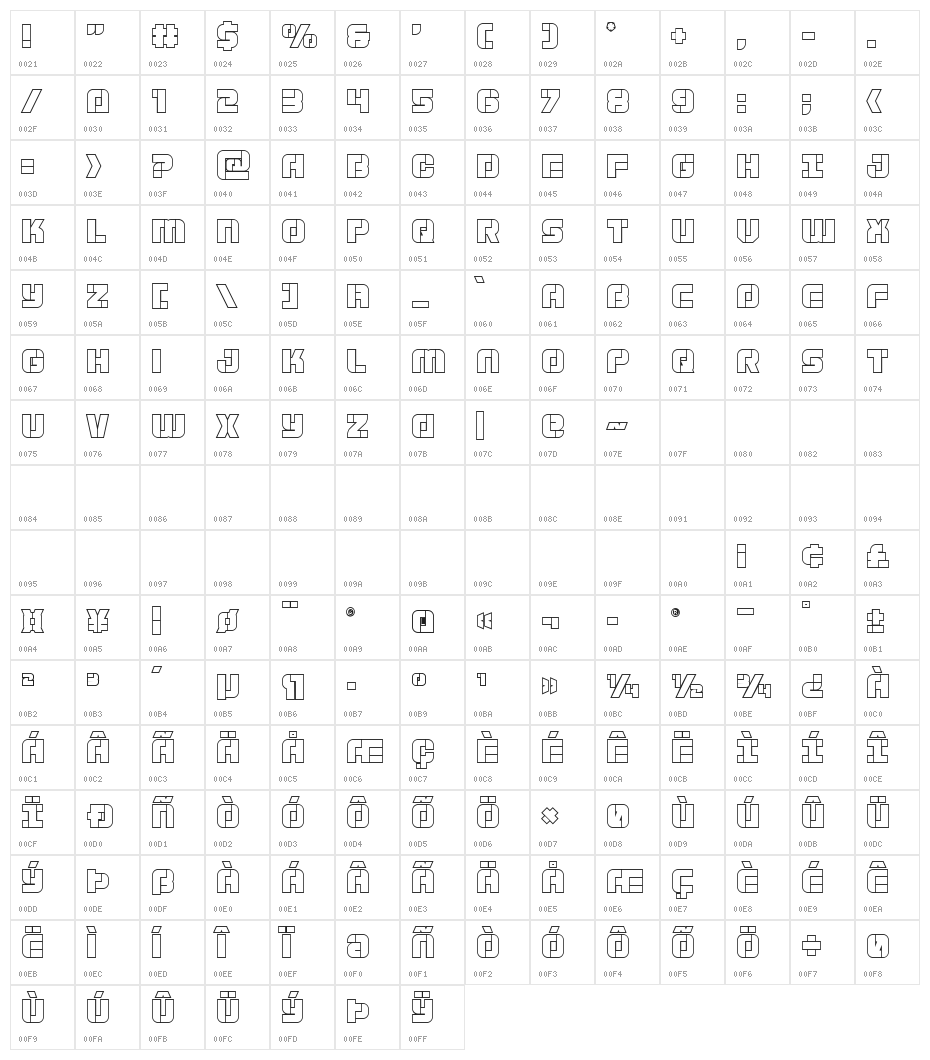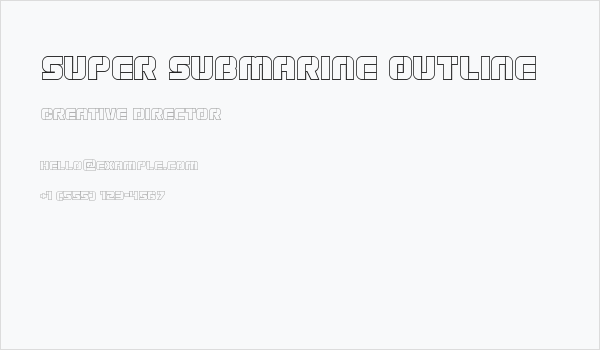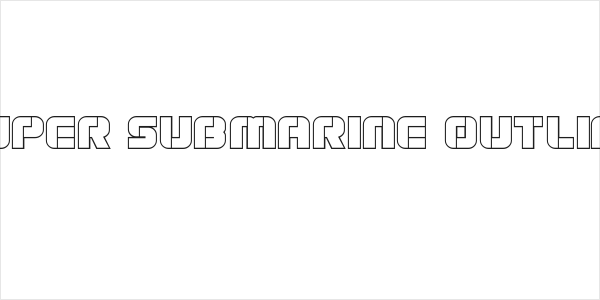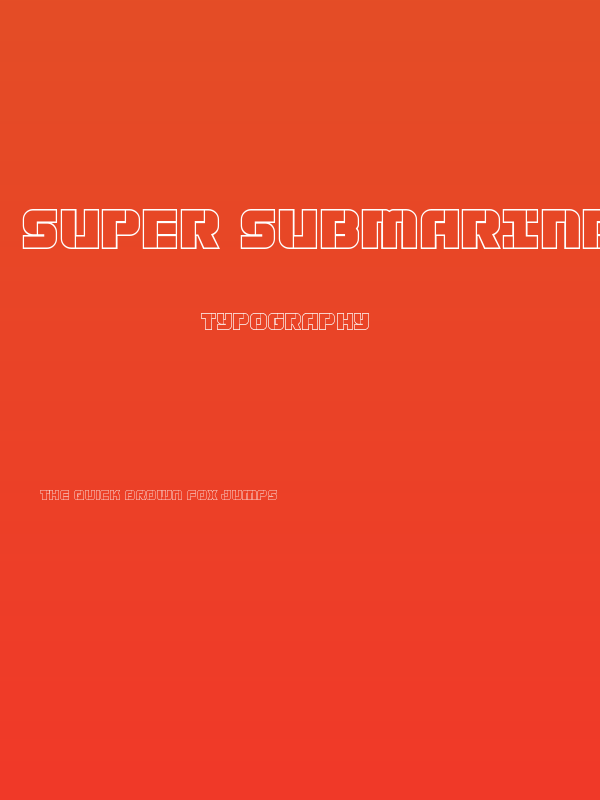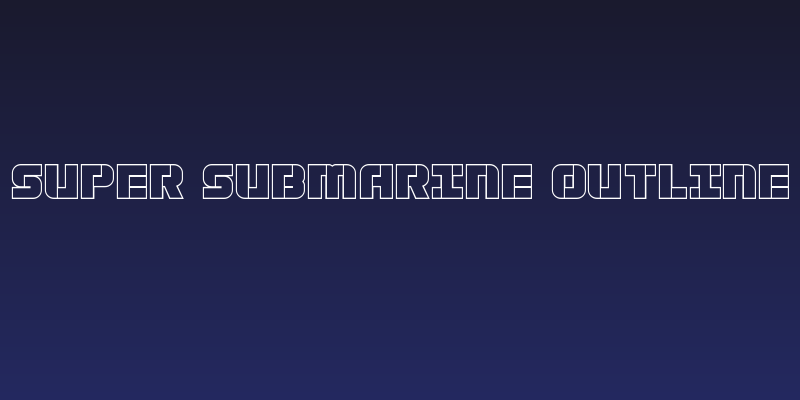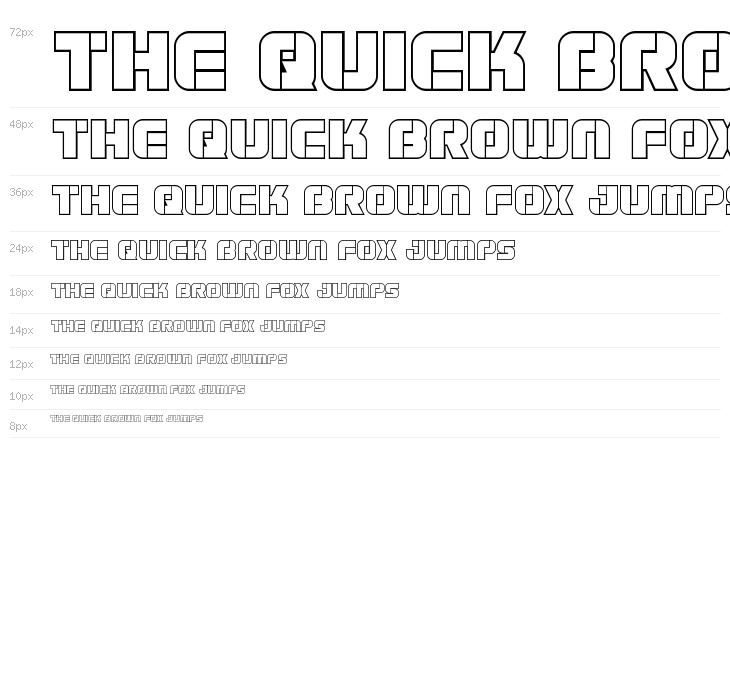
Super Submarine Outline Font
Super Submarine Outline Description
This font features a bold, geometric outline style that gives it a futuristic and industrial appearance. Each character is constructed with thick lines that form a hollow interior, creating a striking visual effect. The uniformity in line thickness across all characters contributes to a cohesive and structured look. The font's design emphasizes angular shapes and straight edges, with minimal curves, which enhances its modern and mechanical feel. The uppercase letters, numbers, and special characters all share this consistent outline style, making it suitable for projects that require a strong and impactful typeface.
| Proposed Projects | Ideal for technology-themed posters, video game titles, branding for industrial products, and futuristic design projects. |